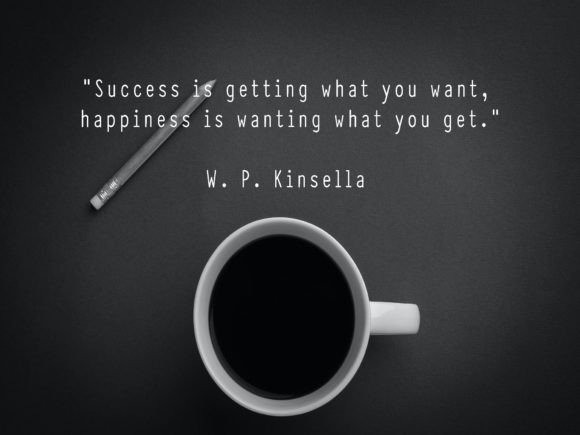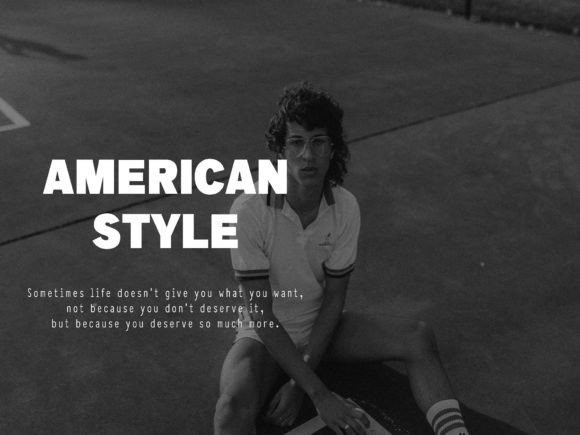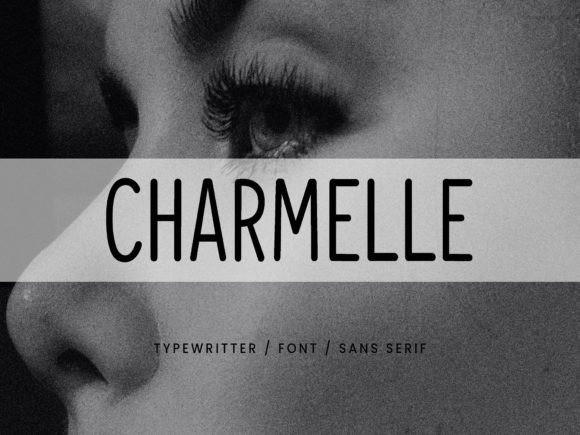
Charmelle Font
Charmelle Font is a simple and elegant sans serif font. So perfect for everyone who needs a typeface for logo designs, magazines, social media, brochures, and many more.